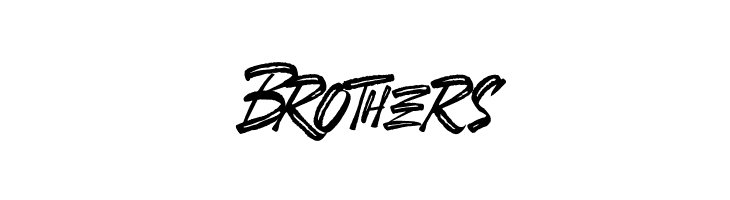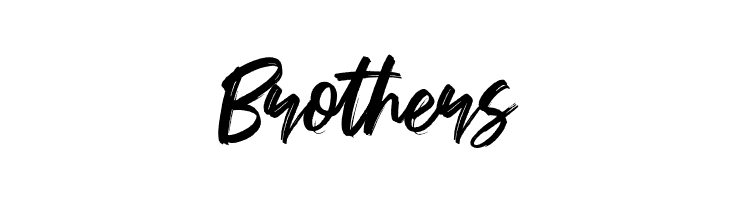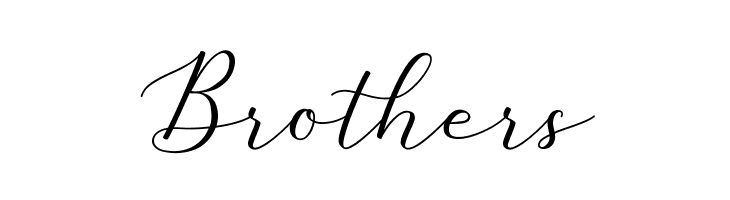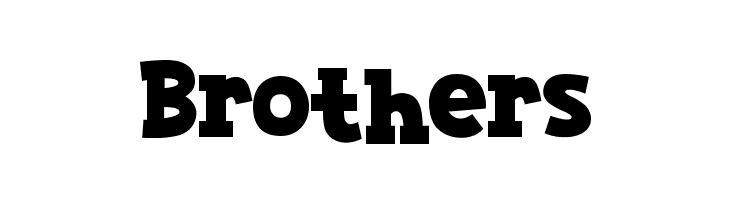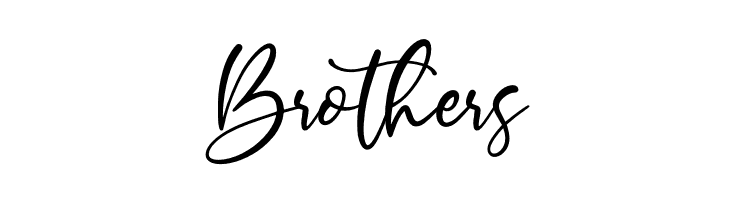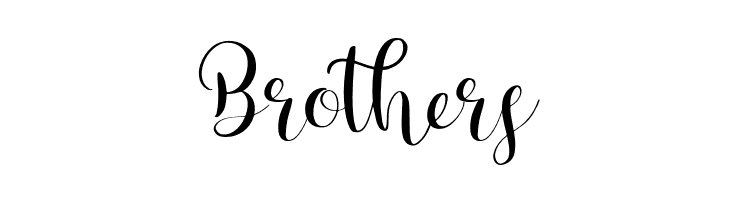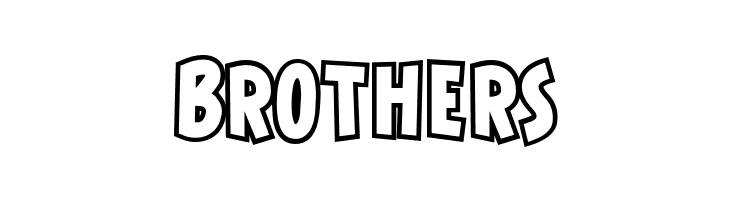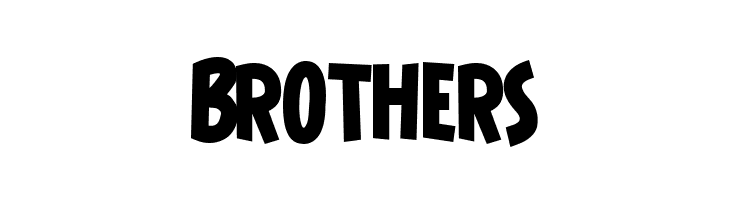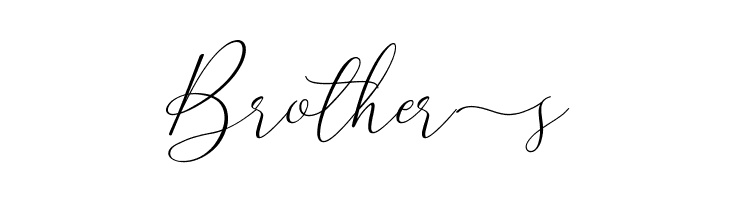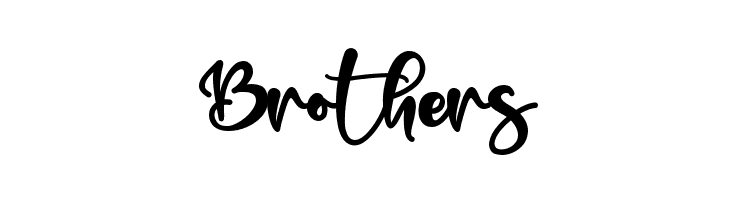
• Shenandoah Personal Use Only
• Shenanigans
( Darrell Flood )
A playful, bold, and rounded font with a hand-drawn, comic-like style.
• Shenanigans basic_PersonalUseOnly
( dcoxy - Greg Medina - www.dcoxy.com/ )
A bold, energetic, hand-drawn style with a playful and dynamic appearance.
• Shenanigans light_PersonalUseOnly
( dcoxy - Greg Medina - www.dcoxy.com/ )
A dynamic, brush-style font with an energetic, handwritten feel.
• Shenanigans_PersonalUseOnly
( dcoxy - Greg Medina - www.dcoxy.com/ )
An ornate and decorative font with intricate flourishes and embellishments.
• Shenttica
A playful, handwritten font with fluid strokes and a casual vibe.
• Shepherd - Personal Use
A bold, expressive script font with a playful, handwritten style.
• Sheppaloe
• Sheptember
A dynamic script font with fluid, cursive strokes and a bold, expressive style.
• sherberi
• Shergine Demo
An elegant script font with flowing, high-contrast cursive letterforms.
• Sheridan
A modern, elegant handwritten font with medium contrast and fluid strokes.
• Sheriff Bounce
( Fonts by Tokopress )
A bold, playful font with a Western flair and bouncy, energetic characters.
• Sheriff of South St
• Sherilla - Personal Use
A modern, elegant script font with flowing curves and high contrast.
• Sherilyn Script Regular
A graceful script font with fluid, cursive strokes and elegant design.
• Sherilyn Script Regular